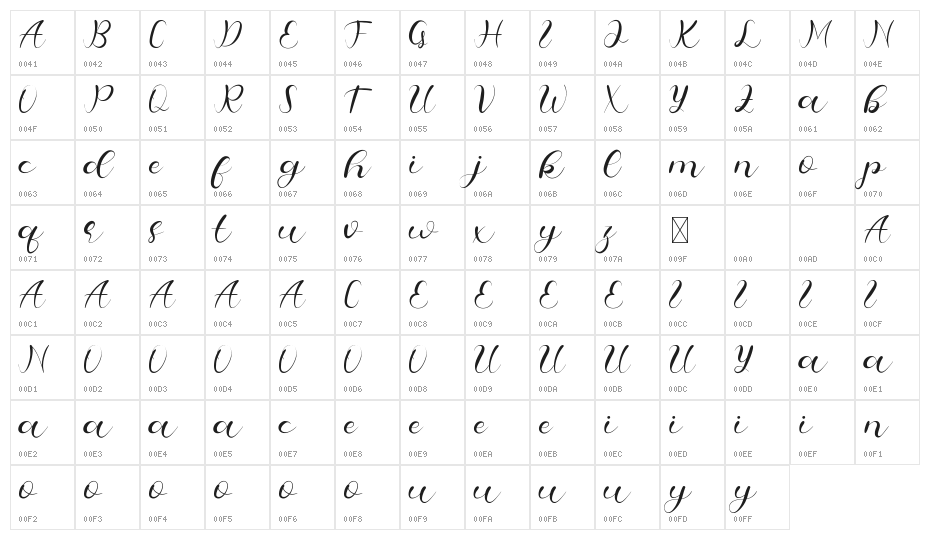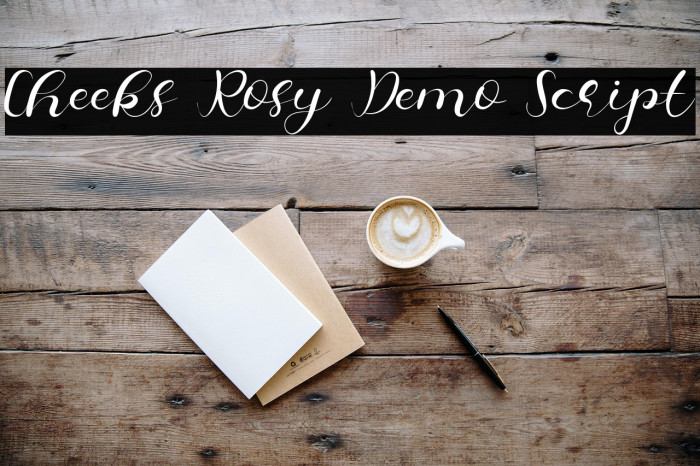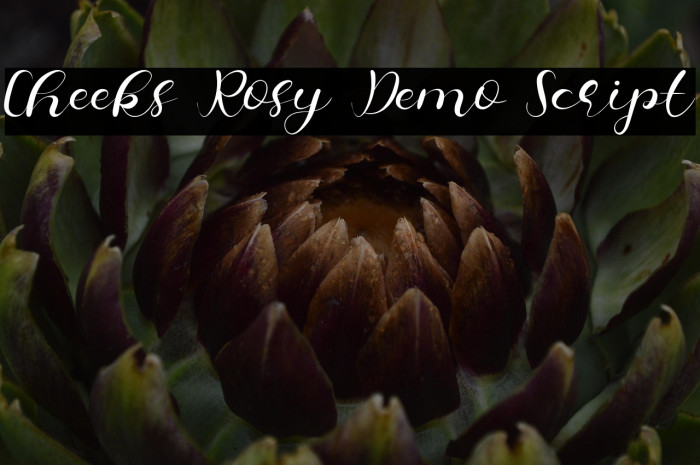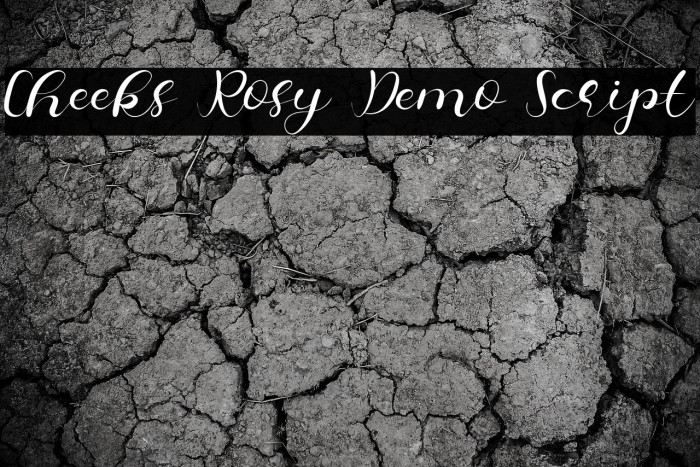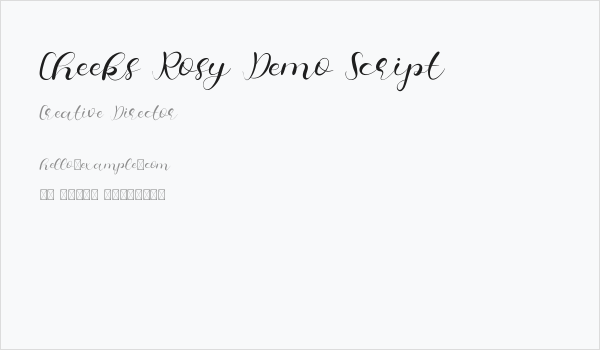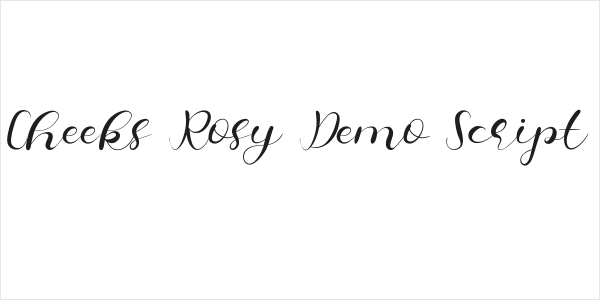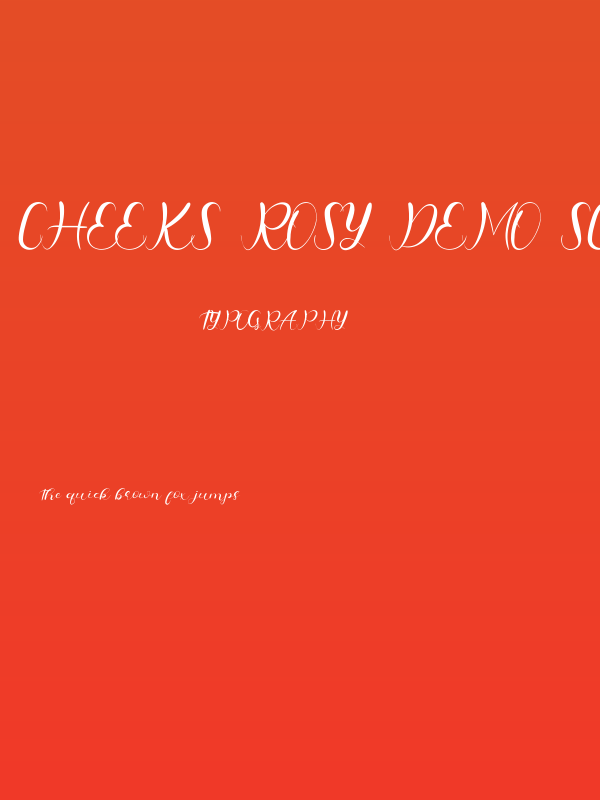
Cheeks Rosy Demo Script Font
Cheeks Rosy Demo Script Description
This elegant script font features a flowing, cursive style with graceful loops and swashes. The characters are interconnected, creating a seamless and fluid appearance. The strokes vary in thickness, adding a dynamic and lively feel to the text. The uppercase letters are ornate, with elaborate flourishes, while the lowercase letters maintain a consistent rhythm and balance. This font exudes a sense of sophistication and charm, making it ideal for projects that require a touch of elegance and personalization.
| Proposed Projects | Ideal for wedding invitations, greeting cards, branding, and elegant packaging designs. |